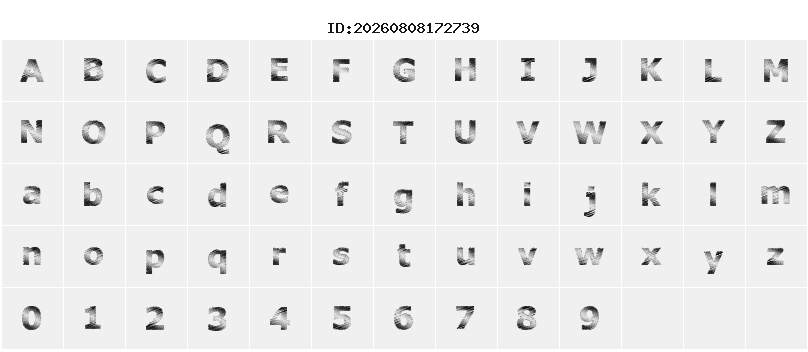
Plutonium Preview
• Font Name: Plutonium
• Designer: Max Infeld Xerographer Fonts
• Description: Made by Xerographer Fonts in Chico,California
About Plutonium.ttf
Plutonium.ttf is a modern, elegant sans-serif font designed for ultimate readability and visual harmony. Perfect for branding, headlines, web design, and print materials.